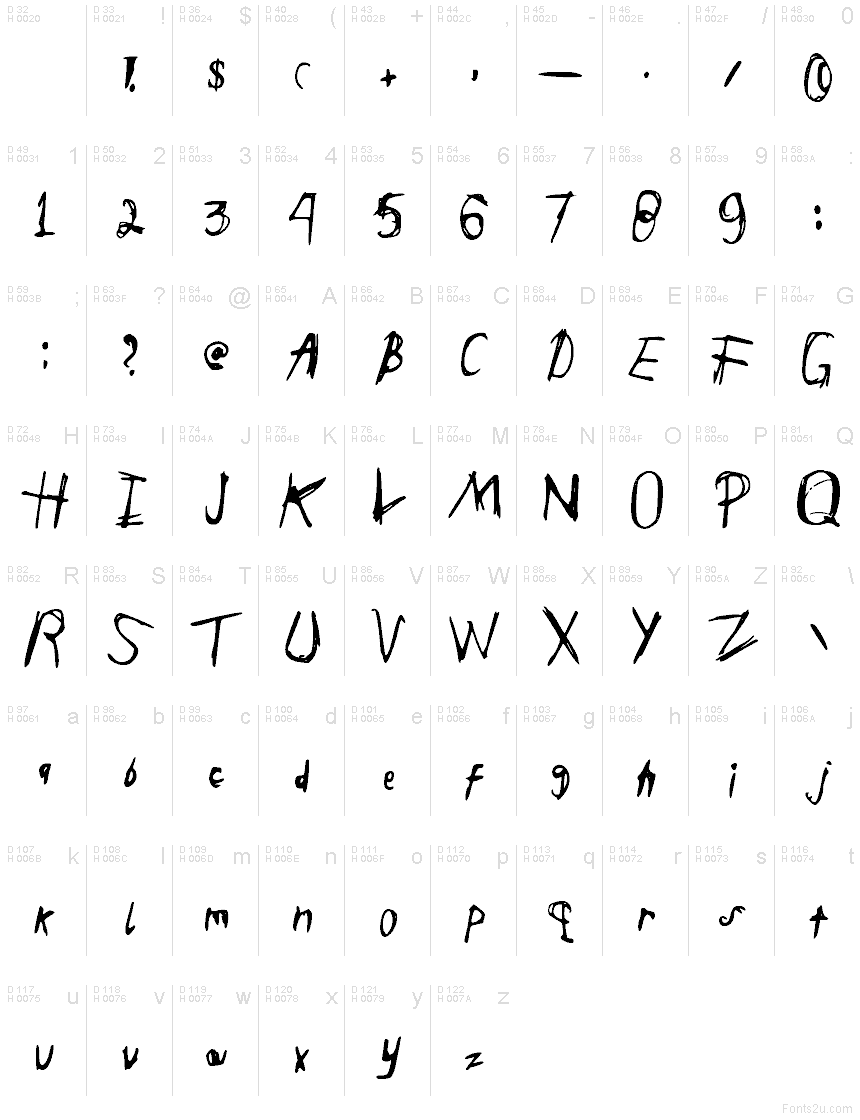
Jerion Regular
Jerion font by Jea is a free rough trash‑style handwritten font. Built for loud, DIY visuals, it throws down inky strokes, wobbly spacing, and teardrop blobs that feel scraped from a marker that’s seen better days. The rhythm is jittery but readable, with hooky openings and soft, dented counters that leave a gritty aftertaste—like a poster pulled from a city wall.
Using Jerion, your work gets instant basement‑show energy. It shines on gig posters, horror titles, skate and streetwear logos, zines, sticker sheets, and album covers. This free font loves big sizes and high contrast; pair it with a clean condensed grotesk to anchor body copy and let Jerion handle the shout.